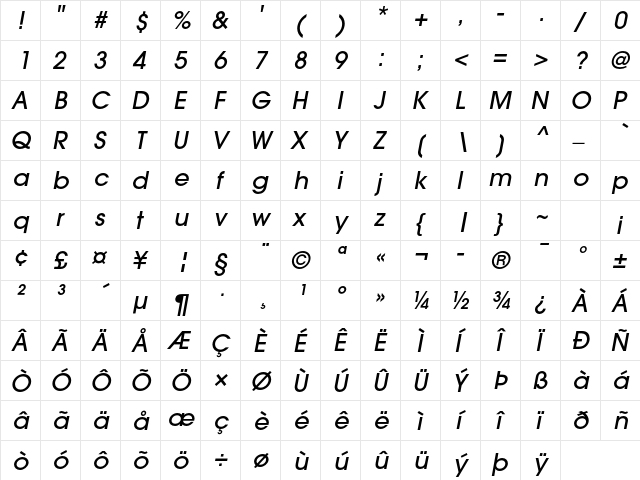
ITC Avant Garde Gothic Std Medium Oblique
| Designer | Herb Lubalin and Tom Carnase |
Design Context for ITC Avant Garde Gothic Std Typeface
ITC Avant Garde Gothic Std has the quiet confidence of well-executed sans-serif typography: versatile, unobtrusive, and dependable at any size. Its italic angle brings a sense of urgency and motion to the letterforms.
Font Pairing: Works well alongside a characterful serif or display font that can carry the expressive load while ITC Avant Garde Gothic Std handles the functional copy.
Pro Tip: Use ITC Avant Garde Gothic Std for UI labels, navigation, and short-form body copy where clean legibility is the priority.